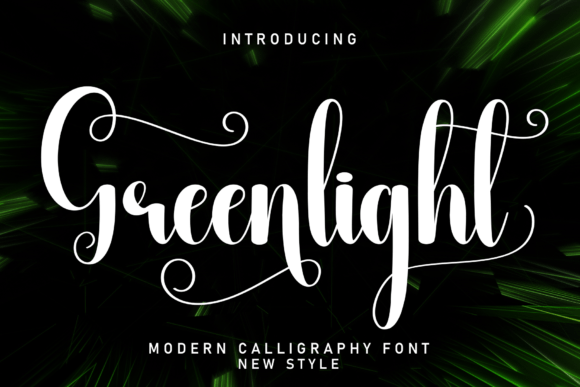
Step into the enchanting world of Greenlight, a script font family that radiates sweetness and friendliness, leaving an indelible mark on every design it graces. Its carefully crafted characters, brimming with charm, dance across your screen, ready to transform your creative visions into tangible masterpieces.
Crafted with meticulous care by the talented William Jhody, Greenlight embodies the essence of elegance and playfulness. Each letter, meticulously designed, exudes a natural flow and authentic handwritten quality, giving your designs an irresistibly personal touch. Whether you're designing wedding invitations, greeting cards, or embarking on a new branding venture, Greenlight's versatile nature ensures it complements a myriad of projects, adding a touch of magic to each one.
Immerse yourself in the diverse collection of Greenlight fonts, each with its own distinct personality. Embrace the allure of Greenlight Regular, where each stroke feels like a delicate brushstroke, the perfect choice for conveying warmth and heartfelt emotions. For a touch of whimsy, explore Greenlight Slant, where the characters playfully lean to one side, adding a dynamic energy to your designs. Discover Greenlight Stamp, a playful font reminiscent of vintage rubber stamps, ideal for creating eye-catching headlines or adding a touch of nostalgia to your work.
With Greenlight in your design arsenal, transform your presentations into visually captivating experiences. Its crisp, legible characters ensure your message shines through, while its charming aesthetics engage your audience, leaving a lasting impact. Let Greenlight be your beacon of creativity, illuminating your work with its undeniable charm and elegance.
Greenlight: The Key to Unlocking Design Brilliance.